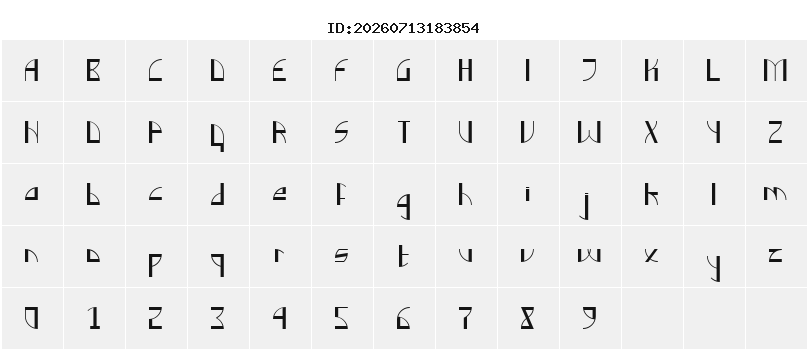
Backlog Preview
About Backlog.ttf
Backlog.ttf is a modern, elegant sans-serif font designed for ultimate readability and visual harmony. Perfect for branding, headlines, web design, and print materials.